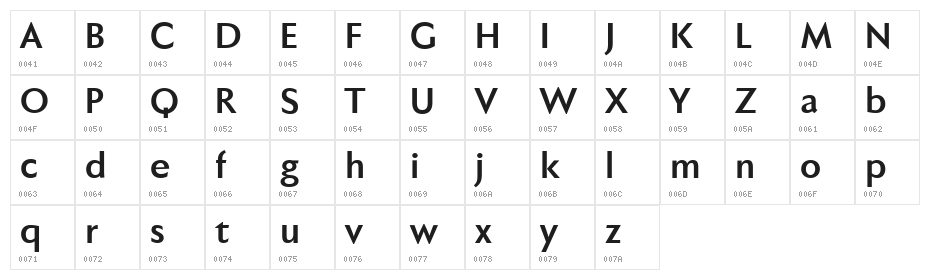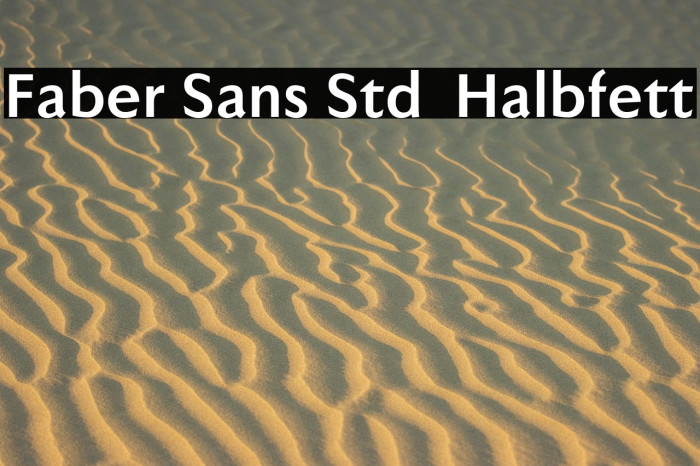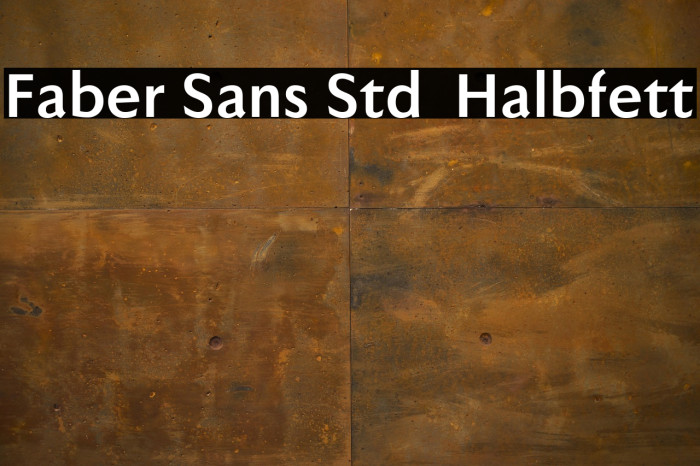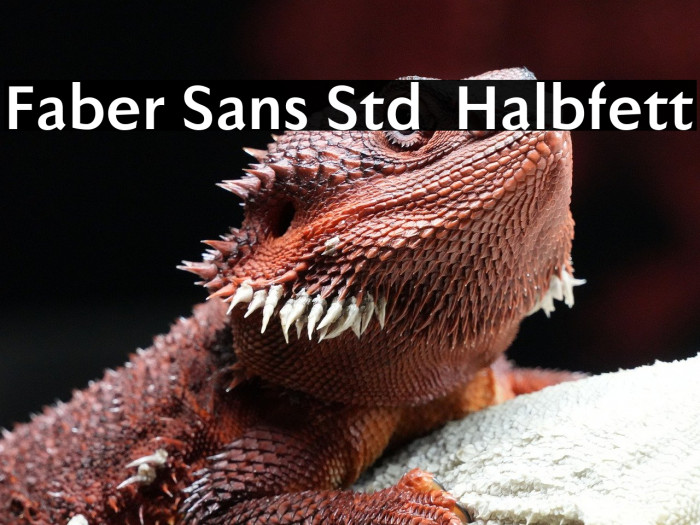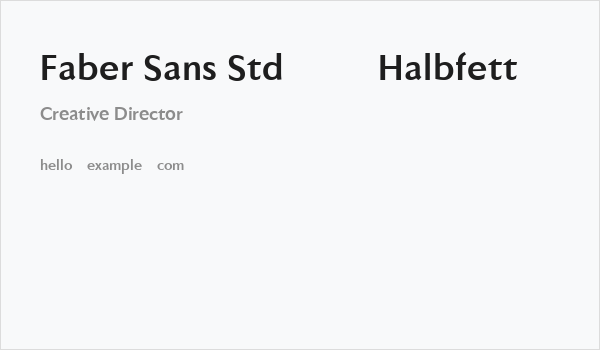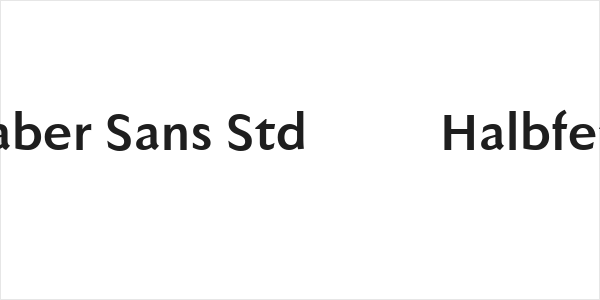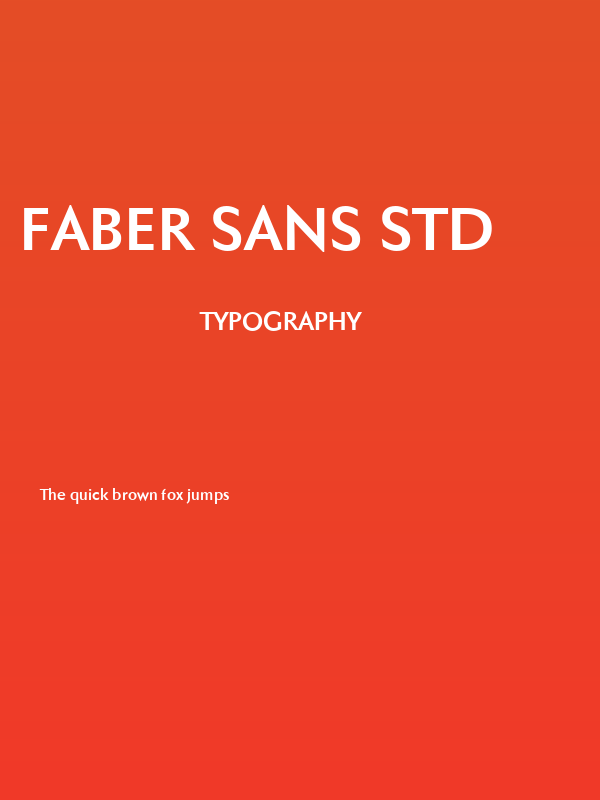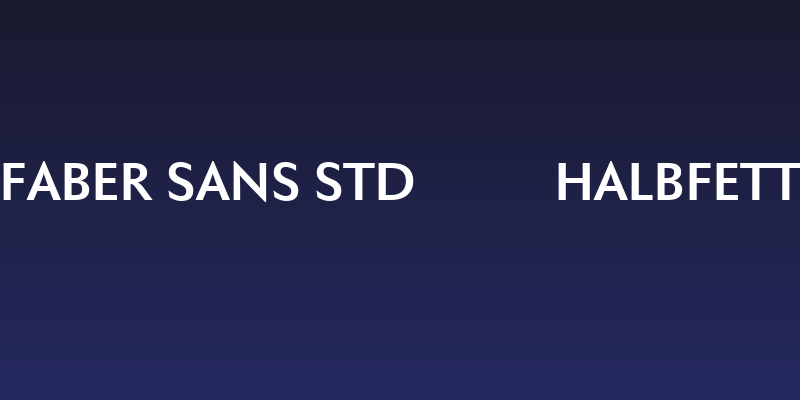
Faber Sans Std 75 Halbfett Font
Faber Sans Std 75 Halbfett Description
This typeface features a clean, modern sans-serif design with a bold weight, making it highly legible and versatile for various applications. The characters are evenly spaced, with a consistent stroke width that provides a harmonious and balanced appearance. The uppercase and lowercase letters maintain a uniform height, contributing to its readability. The font's simplicity and clarity make it suitable for both digital and print media, ensuring that text stands out without being overwhelming. Its straightforward design is ideal for conveying information clearly and effectively.
| Use Case | Headlines, Logos, User Interfaces |
| Proposed Projects | Ideal for branding, advertising, headlines, and user interfaces where clarity and impact are essential. |